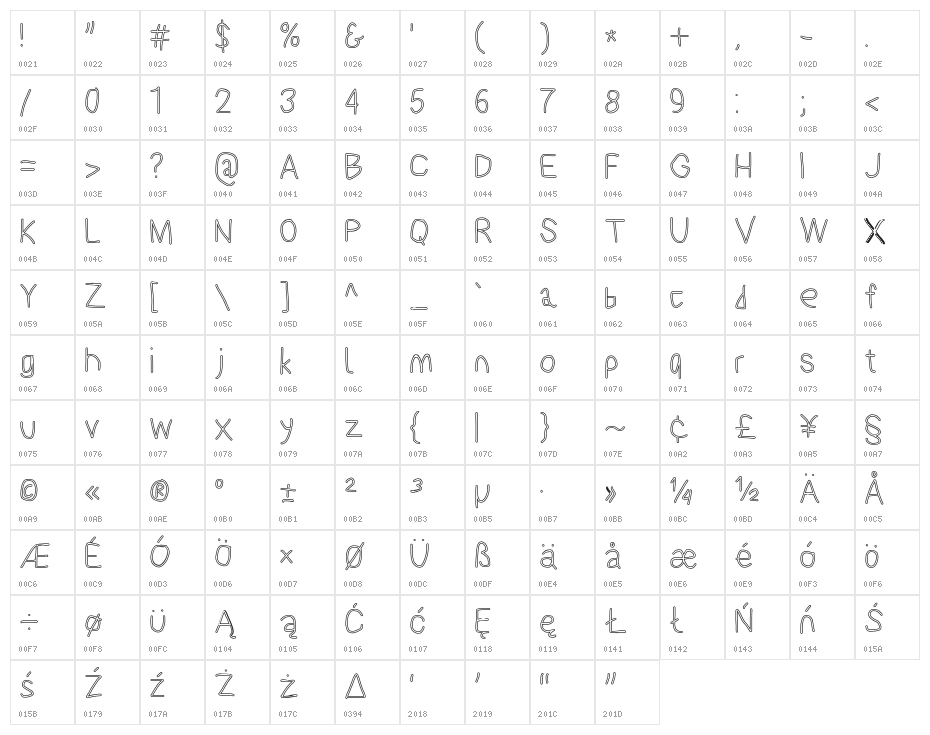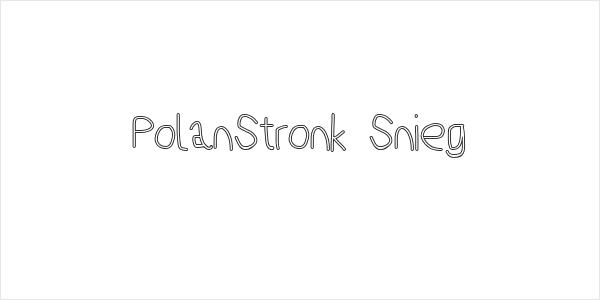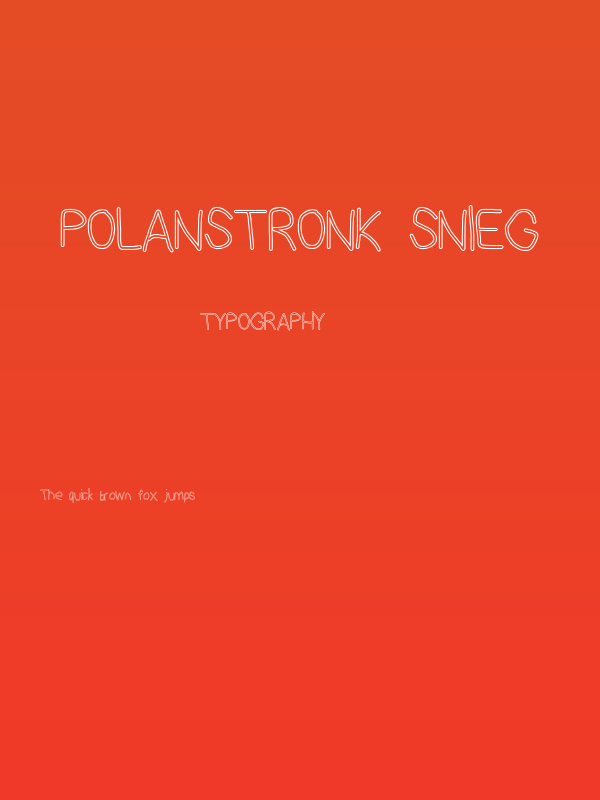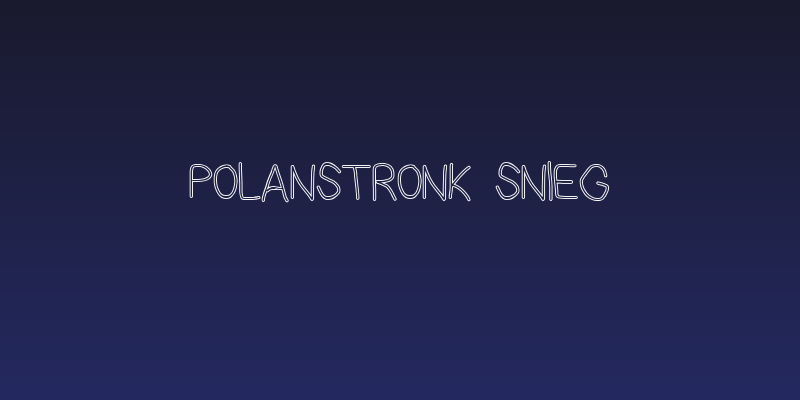
PolanStronk Snieg Font
PolanStronk Snieg Description
This font features a playful and whimsical design, characterized by its hand-drawn appearance. The letters are outlined with a consistent stroke width, giving them a bubble-like quality. The uppercase and lowercase letters maintain a uniform height, contributing to a cohesive look. The numerals and special characters follow the same style, ensuring visual harmony across all characters. The font's informal and friendly nature makes it suitable for projects that require a touch of creativity and fun. Its unique style is both eye-catching and easy to read, making it versatile for various design applications.